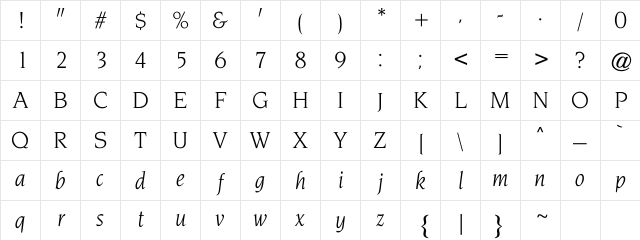
NovareseBkIt Regular
Design Context for NovareseBkIt
NovareseBkIt is a composed and adaptable typeface that performs quietly and consistently across a wide range of design contexts.